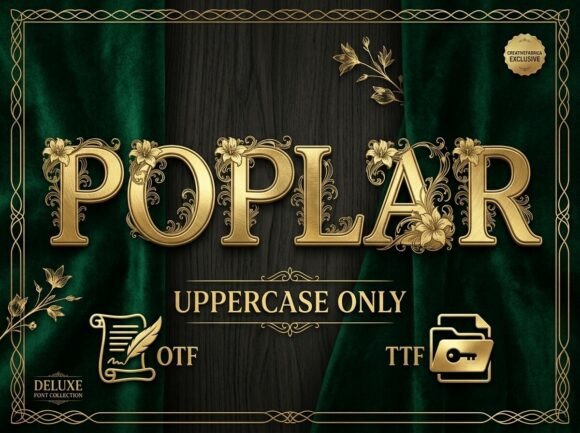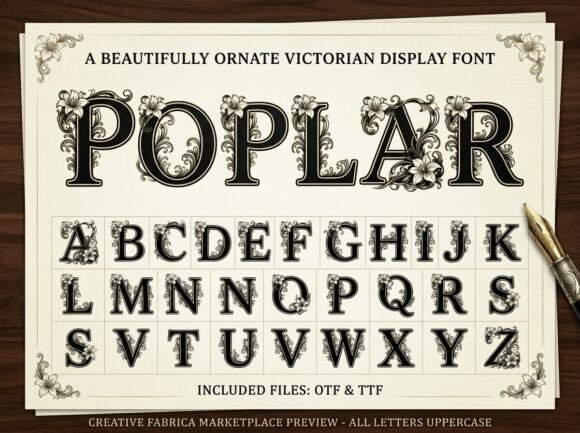
Introduction to Poplar Font
Have you ever found yourself stuck in a design rut, searching for the perfect font to elevate your creative project? You know, that moment when you’ve got a vision, but the right tool is just out of reach? I’ve been there, and I’m sure many designers have too. But what if I told you there’s a game-changing font that can transport your designs to a world of timeless refinement and sophistication?
Meet Poplar Font, a stunning decorative serif alphabet that’s about to become your new best friend. With its bold, classic serif letterforms and intricate Victorian-style floral scrolls, this premium typeface is the perfect choice for designs that demand a touch of elegance and sophistication. Whether you’re working on luxury wedding stationery, boutique apothecary branding, or high-end winery labels, Poplar Font is the ideal design resource to take your projects to the next level.
Key Features of Poplar Font
- High-quality design resource perfect for creative projects, offering a sophisticated and elegant look.
- Includes a range of glyphs and characters, making it an ideal choice for designers working on complex creative projects.
Honest Review: Poplar Font
I recently stumbled upon the Poplar Font and I’m excited to share my thoughts with you. As a designer, I’m always on the lookout for high-quality design resources that can elevate my creative projects. The Poplar Font definitely fits the bill.
- ✨ Elegant and modern design: The Poplar Font boasts a sleek and sophisticated look that’s perfect for any project requiring a touch of class.
- ✨ Highly customizable: With a wide range of weights and styles, the Poplar Font offers unparalleled flexibility for designers.
Tips for Getting the Most Out of Poplar Font
Poplar Font is perfect for a variety of creative projects, including logos, business cards, and social media graphics. Its high quality and versatility make it an ideal design resource for professionals and hobbyists alike.